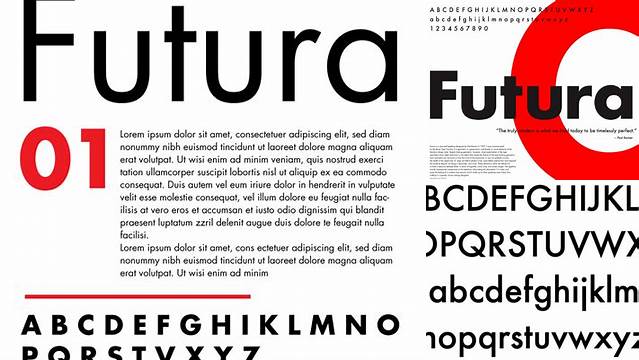
What is Futura Font?
Before we get into the nitty-gritty of downloading, let's understand what makes Futura so special. Futura is a geometric sans-serif typeface designed by Paul Renner in 1927. It was created as a contribution to the New Frankfurt project, aiming to provide a modern and functional typeface for the era. Renner was influenced by the Bauhaus movement, which emphasized simplicity and functionality in design. This influence is evident in Futura's clean lines and geometric shapes.
Futura is characterized by its near-perfect circles, triangles, and squares. This geometric purity gives it a distinctively modern and elegant look. Unlike many other typefaces of its time, Futura avoids excessive ornamentation and focuses on clarity and readability. This makes it highly versatile and suitable for a wide range of design applications. From logos and headlines to body text, Futura excels in various contexts. Over the years, Futura has been used extensively in various fields, like in the Volkswagen advertisements, IKEA catalogs (until 2010), and even on the moon, with a plaque left by the Apollo 11 mission bearing the iconic typeface. This widespread adoption has solidified Futura's place as a design classic.
The appeal of Futura lies in its ability to convey both modernity and sophistication. Its clean lines and geometric shapes give it a contemporary feel, while its balanced proportions and elegant letterforms ensure readability and visual appeal. Whether you're designing a corporate logo, a magazine layout, or a website, Futura can add a touch of class and professionalism to your work. It’s no wonder designers keep coming back to Futura for its reliability and timeless charm.
Why is Futura Font so Popular?
So, why has Futura remained so popular for nearly a century? Several factors contribute to its enduring appeal. First and foremost, its clean and geometric design makes it incredibly versatile. It works well in both large and small sizes, and it pairs well with a variety of other typefaces. Whether you're creating a bold headline or setting body text, Futura maintains its legibility and visual impact.
Secondly, Futura has a timeless quality that transcends trends. While other typefaces may come and go, Futura remains a classic choice for designers seeking a modern and sophisticated look. Its geometric forms and balanced proportions give it a sense of stability and reliability. This timelessness has made it a favorite among brands seeking to project an image of trust and professionalism. Its geometric structure provides a sense of balance and sophistication that remains relevant regardless of current design fads. Because of this, Futura is a solid choice for both print and digital projects, guaranteeing your work looks current and professional for years. Brands recognize this value, often using Futura in their logos and marketing materials to communicate stability and elegance.
Finally, Futura's widespread adoption has contributed to its popularity. Because it has been used in so many high-profile projects over the years, it has become instantly recognizable and associated with quality and good design. This familiarity can be a valuable asset when you're trying to create a brand identity or communicate a message. Many designers and brands appreciate the subtle yet powerful impact Futura has. Because of this, they use it to craft visual identities that resonate with audiences on a global scale. The familiarity with Futura builds trust and immediate recognition, solidifying its position as a go-to typeface for designers worldwide.
While a free Futura font download of the original may not be readily available, there are plenty of legal and affordable alternatives to explore. Whether you choose to purchase a license for Futura or opt for a free alternative like Montserrat, Lato, Raleway, or Open Sans, you can achieve a similar aesthetic in your designs. Remember to always respect font licenses and use fonts responsibly. With the right font and a little creativity, you can create stunning designs that stand the test of time. So go ahead, experiment with these geometric sans-serif fonts and elevate your designs today!